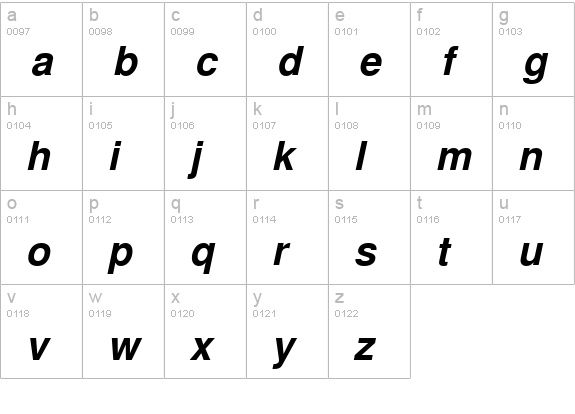
NimbusSanLCY Bold Italic Font Details
NimbusSanLCY Bold Italic is a strong, high-contrast, italic variant in the NimbusSanLCY typeface family \xE2\x80\x94 well suited to headlines, attention-grabbing titles, and strong calls-to-action.
The NimbusSanLCY Bold Italic font is a striking and versatile typeface that exudes confidence and modernity. Its bold weight and italicized style make it perfect for adding emphasis and sophistication to any design project. With its clean lines and sleek curves, this font is sure to make a bold statement and leave a lasting impression. Best of all, NimbusSanLCY Bold Italic is available for free download at FontsMarket.com. Whether you're a designer looking to elevate your projects or a business seeking a standout font for branding, this typeface is a valuable addition to your toolkit. Don't miss out on the opportunity to enhance your designs with this stylish and impactful font, available for free at FontsMarket.com.